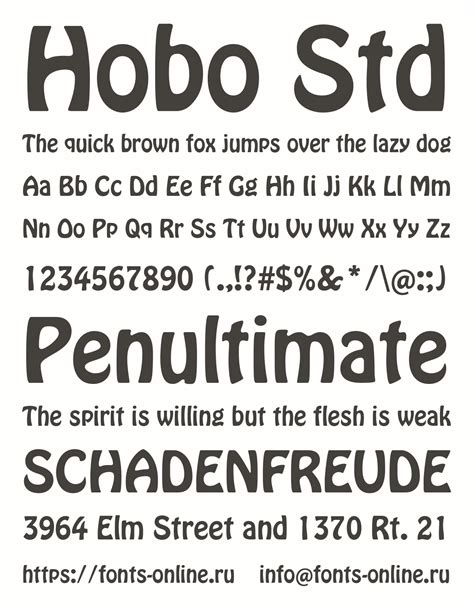
Hobo Std Font. Web explore hobo designed by morris fuller benton at adobe fonts. Web hobo std font.
Web hobo std font. Hobo std is a classy and delicate display font that was created by morris. A decorative typeface with 1 style, available from adobe fonts. By dafont june 25, 2023. Web explore hobo designed by morris fuller benton at adobe fonts.
Hobo std is a classy and delicate display font that was created by morris. By dafont june 25, 2023. Hobo std is a classy and delicate display font that was created by morris. Web explore hobo designed by morris fuller benton at adobe fonts. A decorative typeface with 1 style, available from adobe fonts. Web hobo std font.